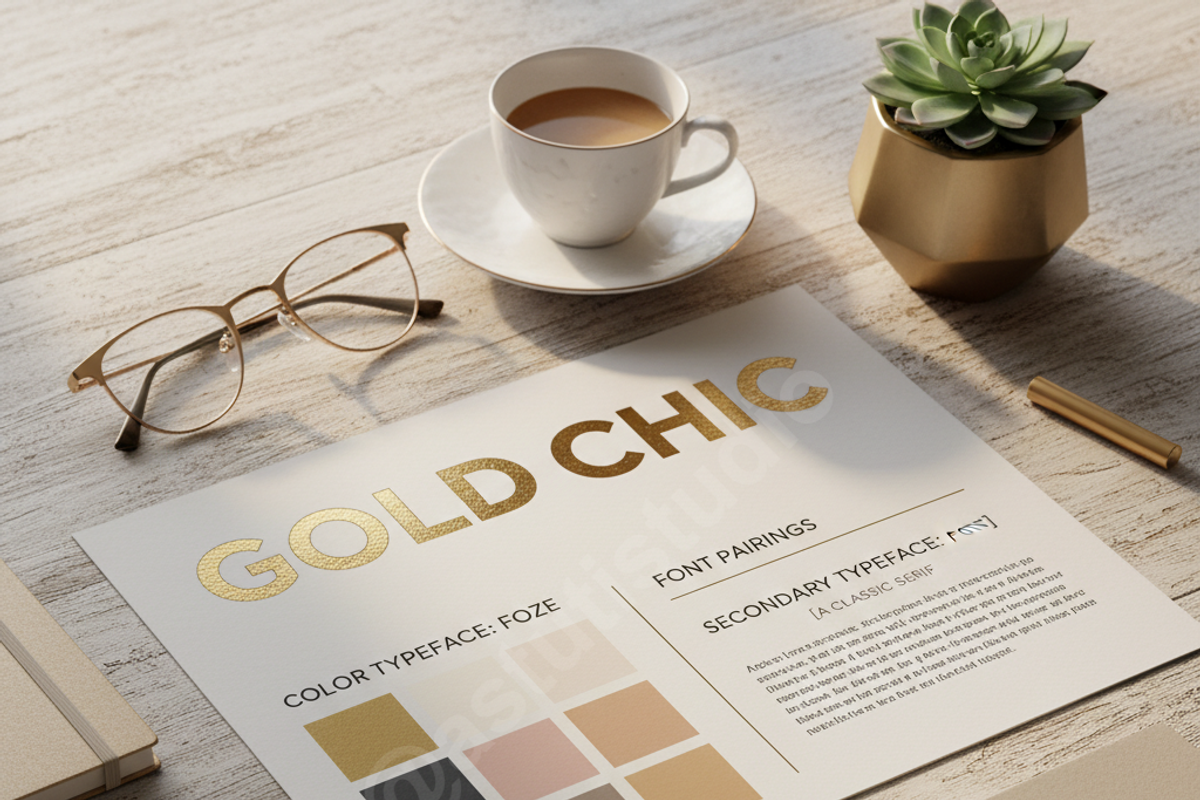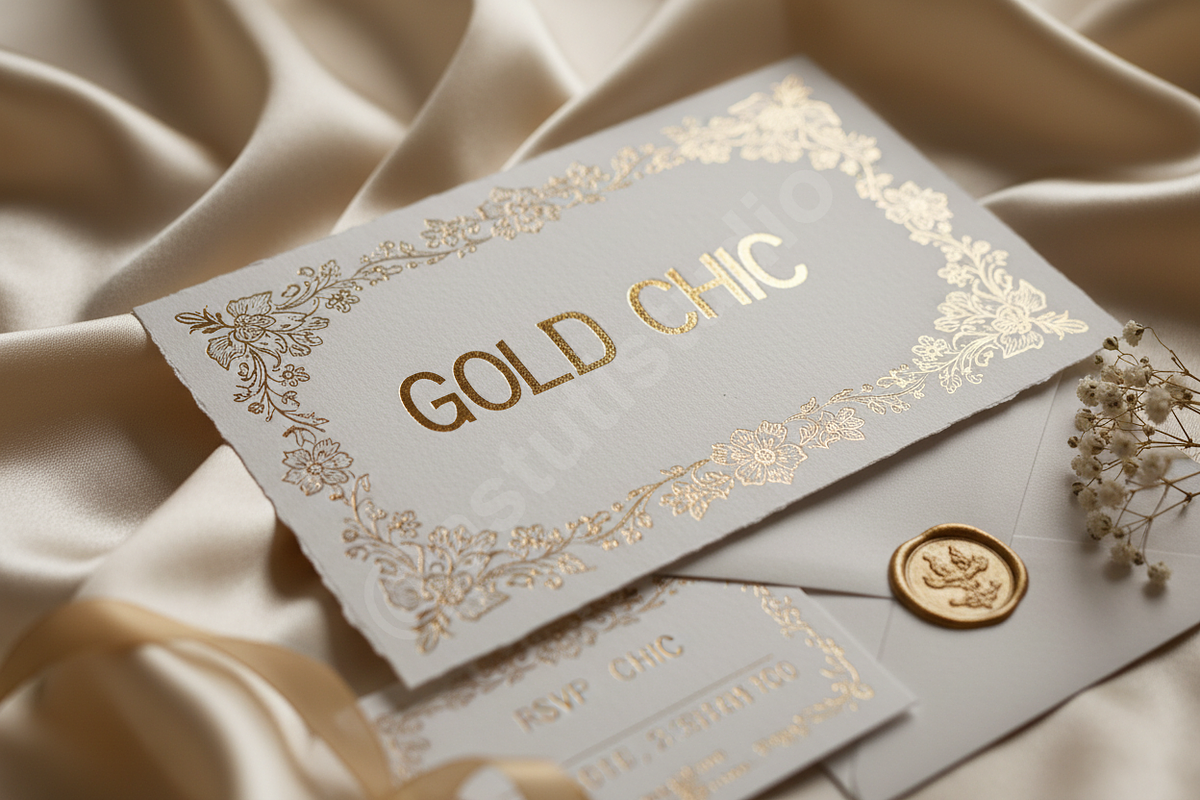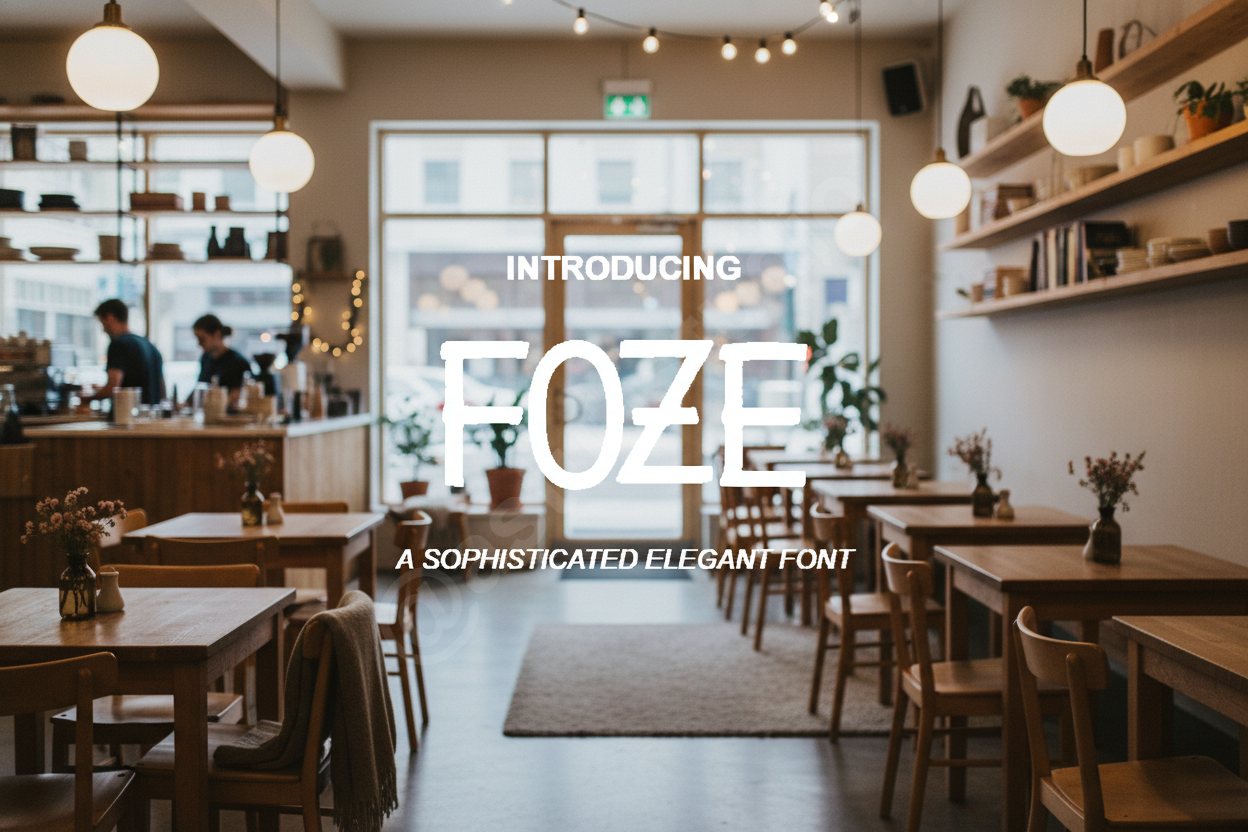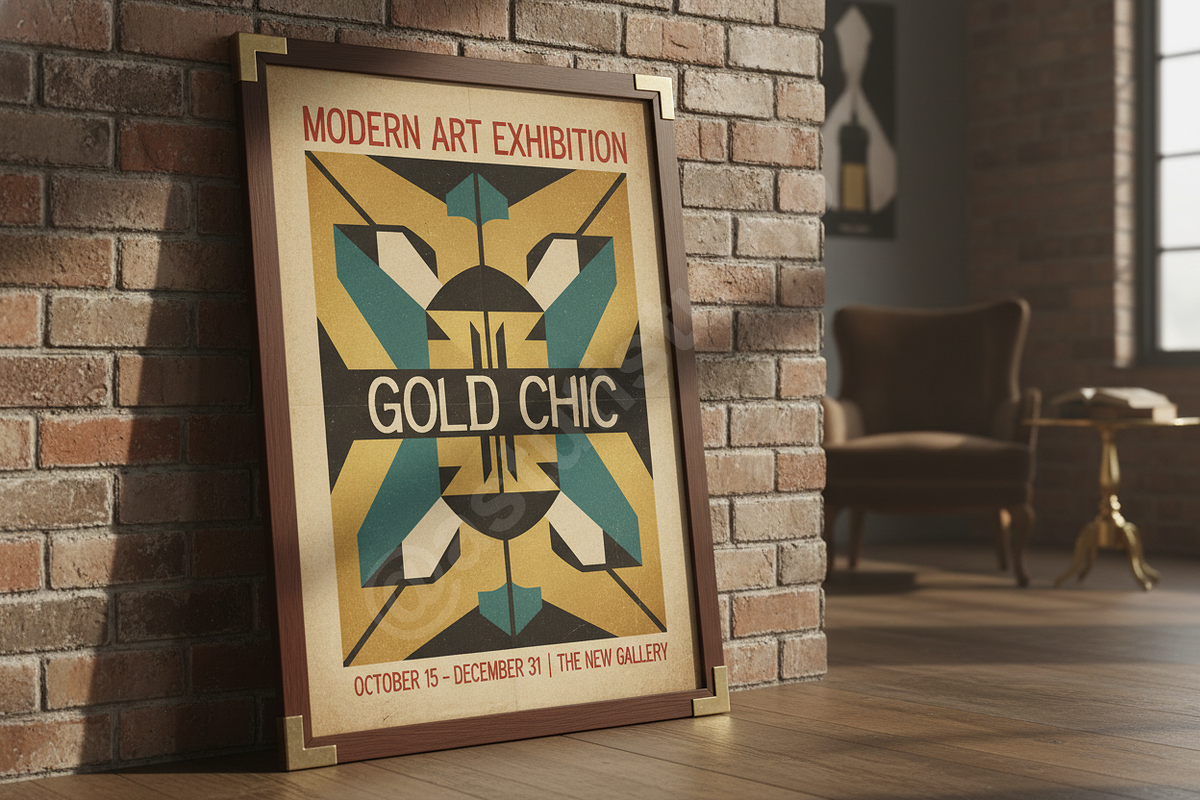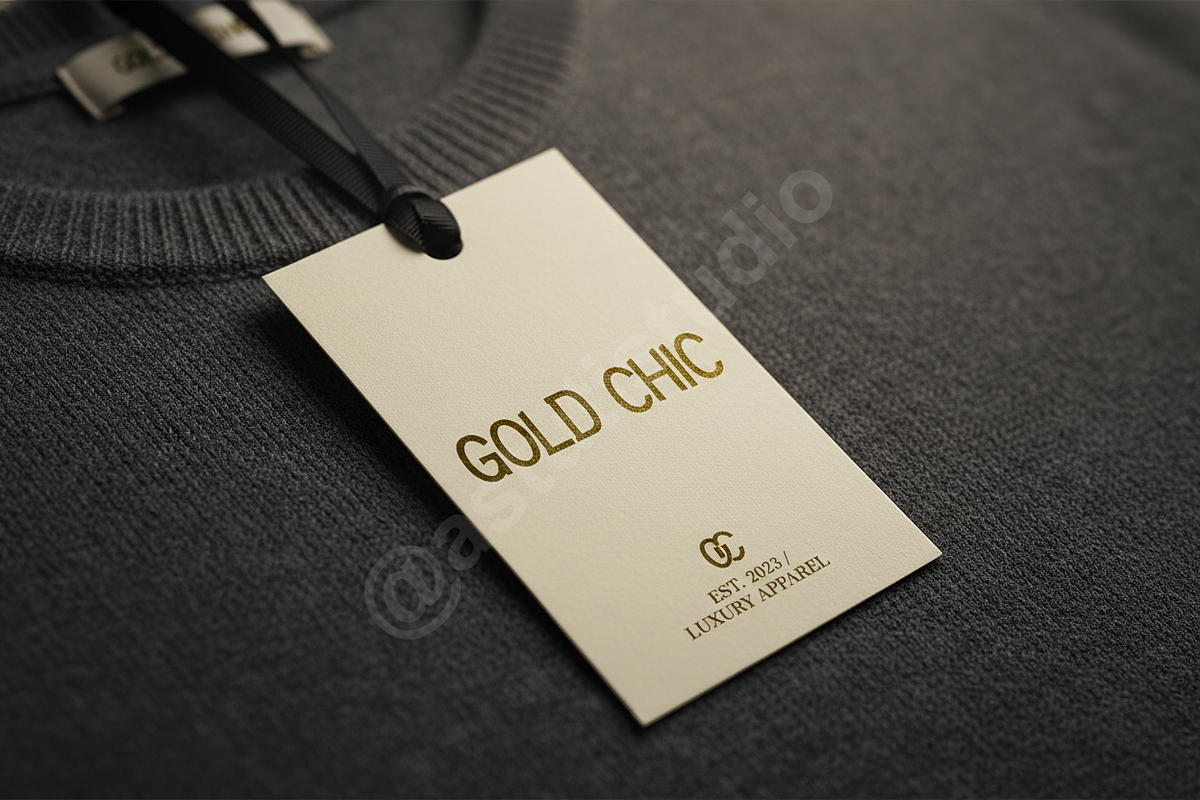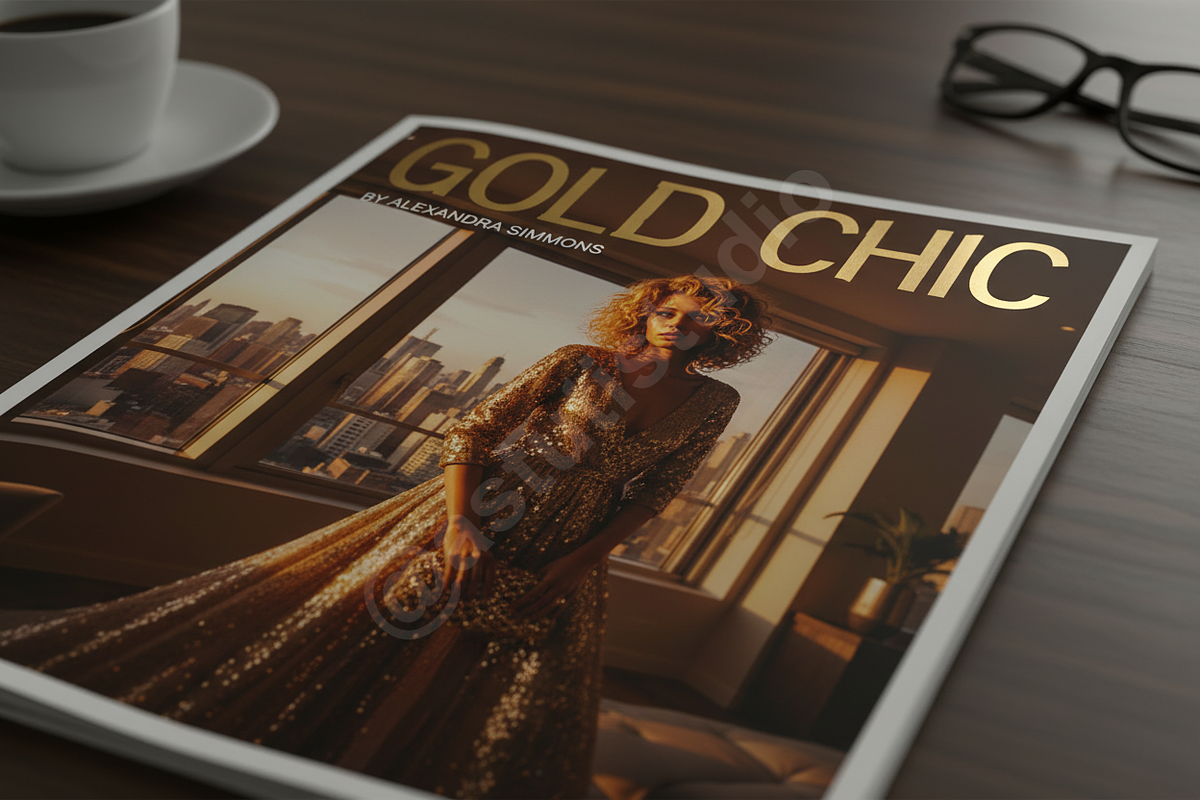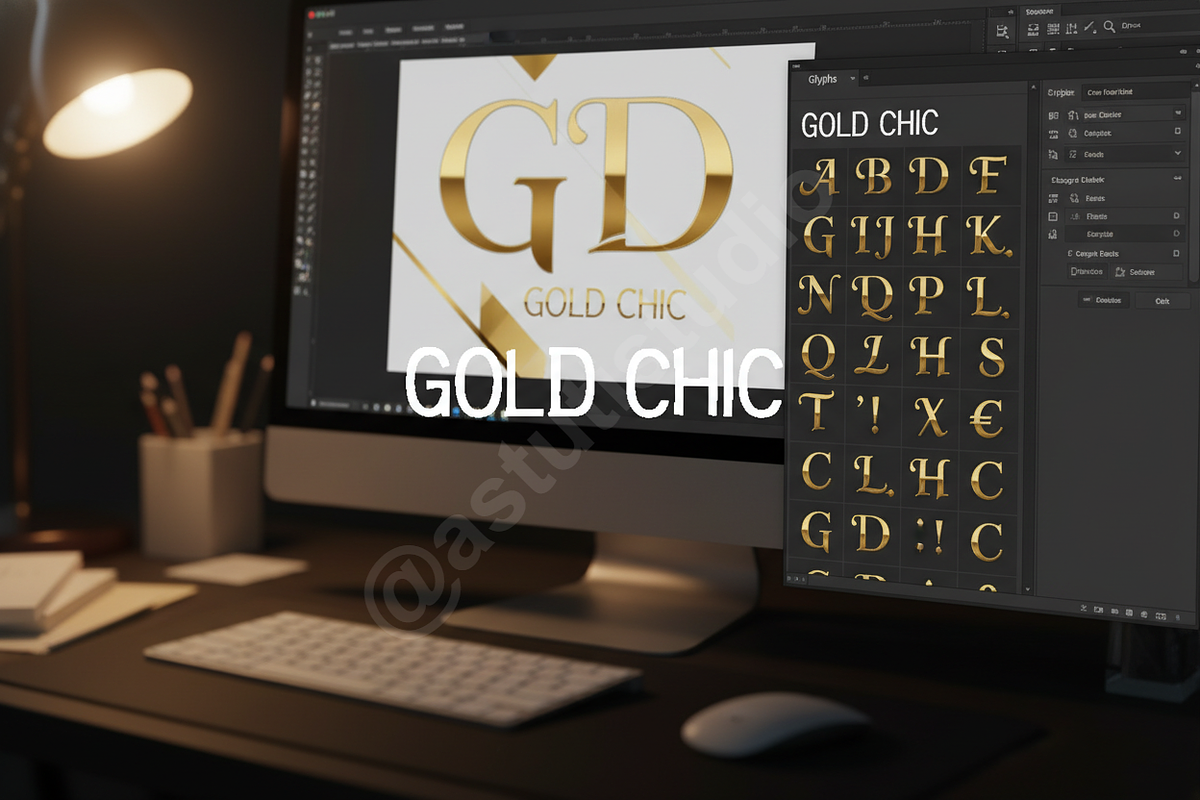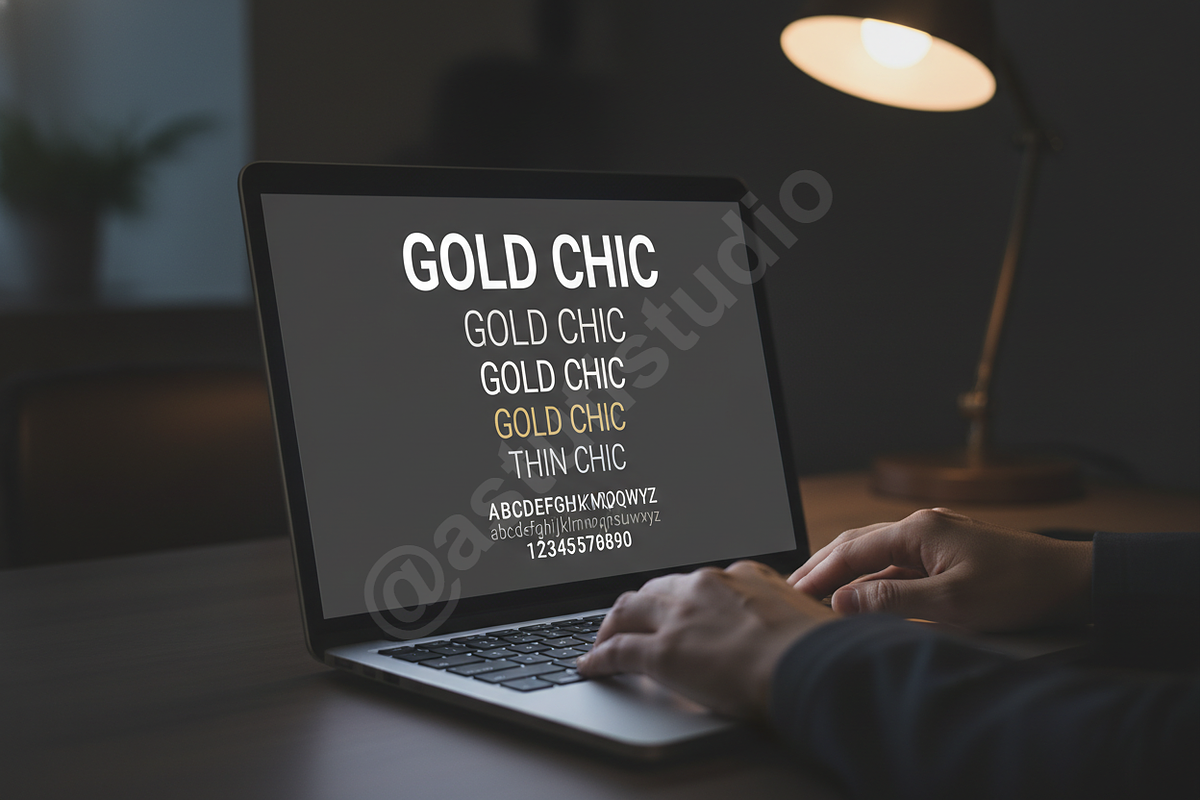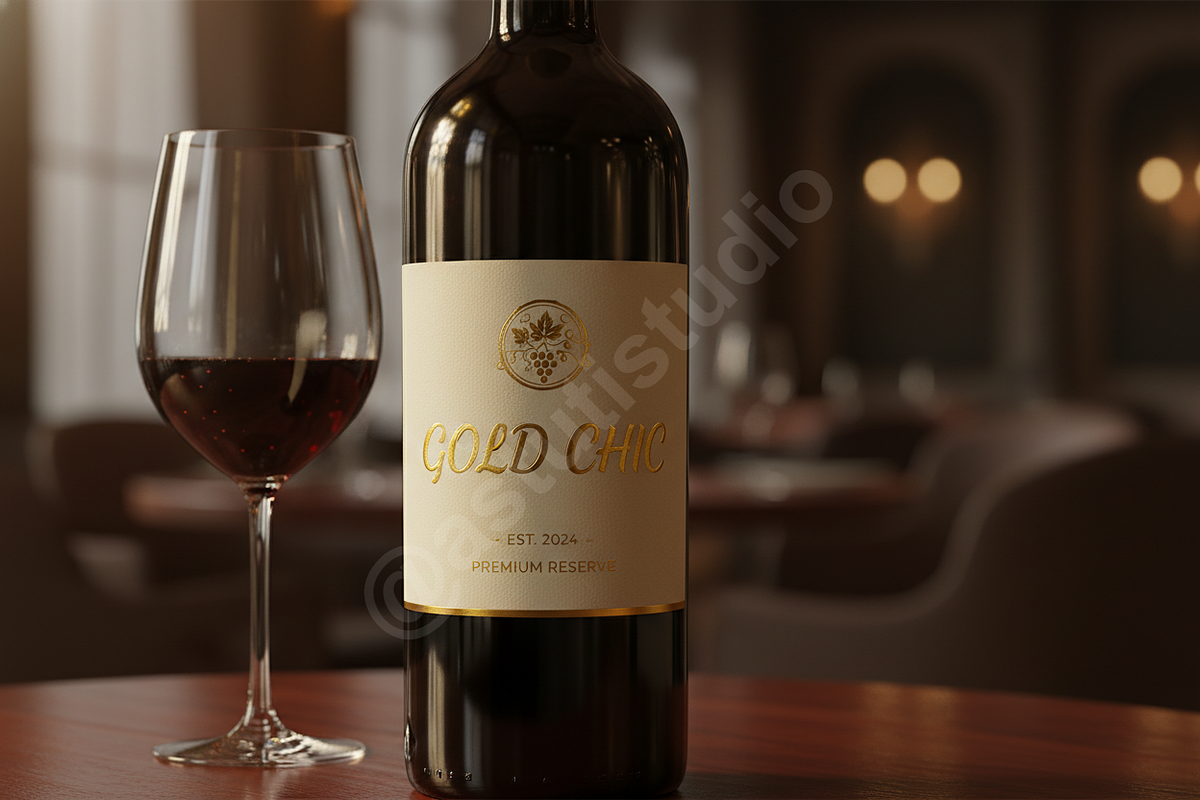
Foze Typeface: Elegant Luxury Serif
Introducing Foze, a sophisticated and timeless serif typeface designed for the discerning creative. Foze embodies classic elegance with a modern, refined edge, making it the quintessential choice for projects demanding prestige and refinement.
Perfectly suited for high-fashion editorial layouts, prestigious luxury brand identities, and visually impactful social media campaigns, Foze ensures your message is delivered with unparalleled style.
- Foze Regular and Foze Bold Weights
- Extensive OpenType Features, including elegant Ligatures and Stylistic Alternates
- Optimized kerning for exceptional legibility in both headline and body text
- Ideal for print media, digital advertising, and website integration